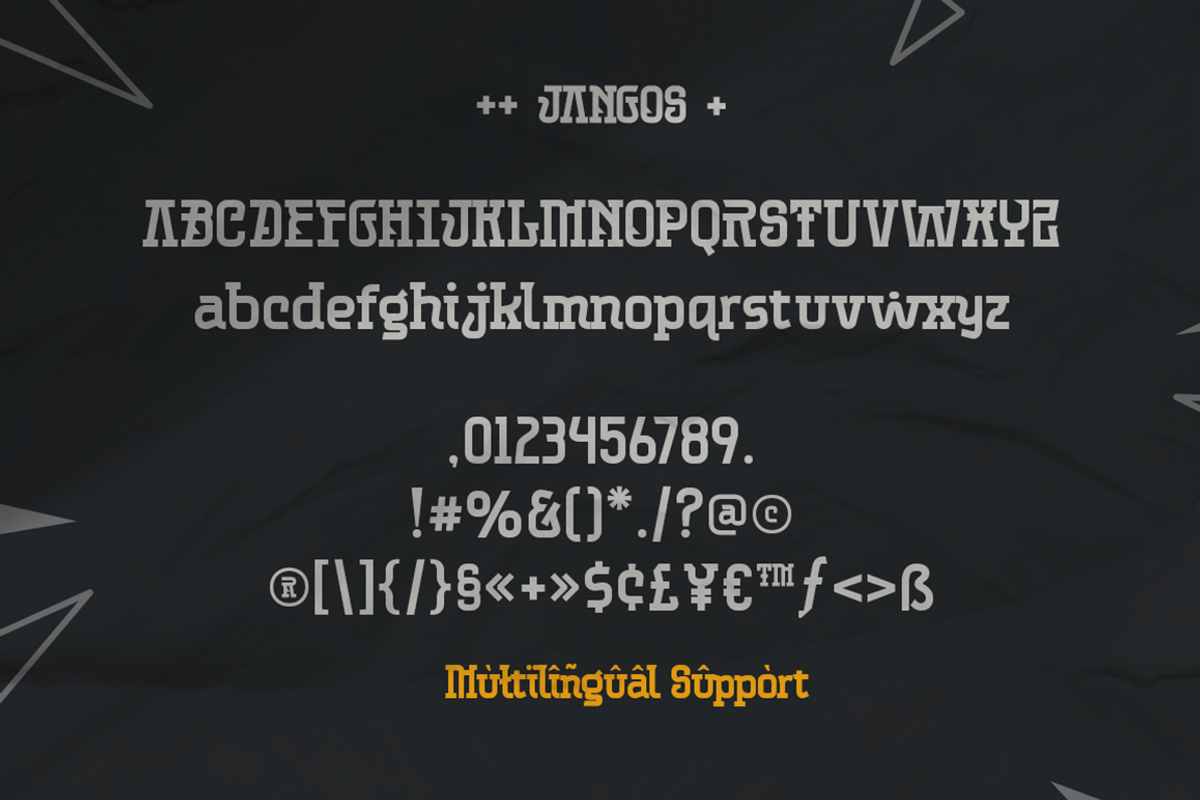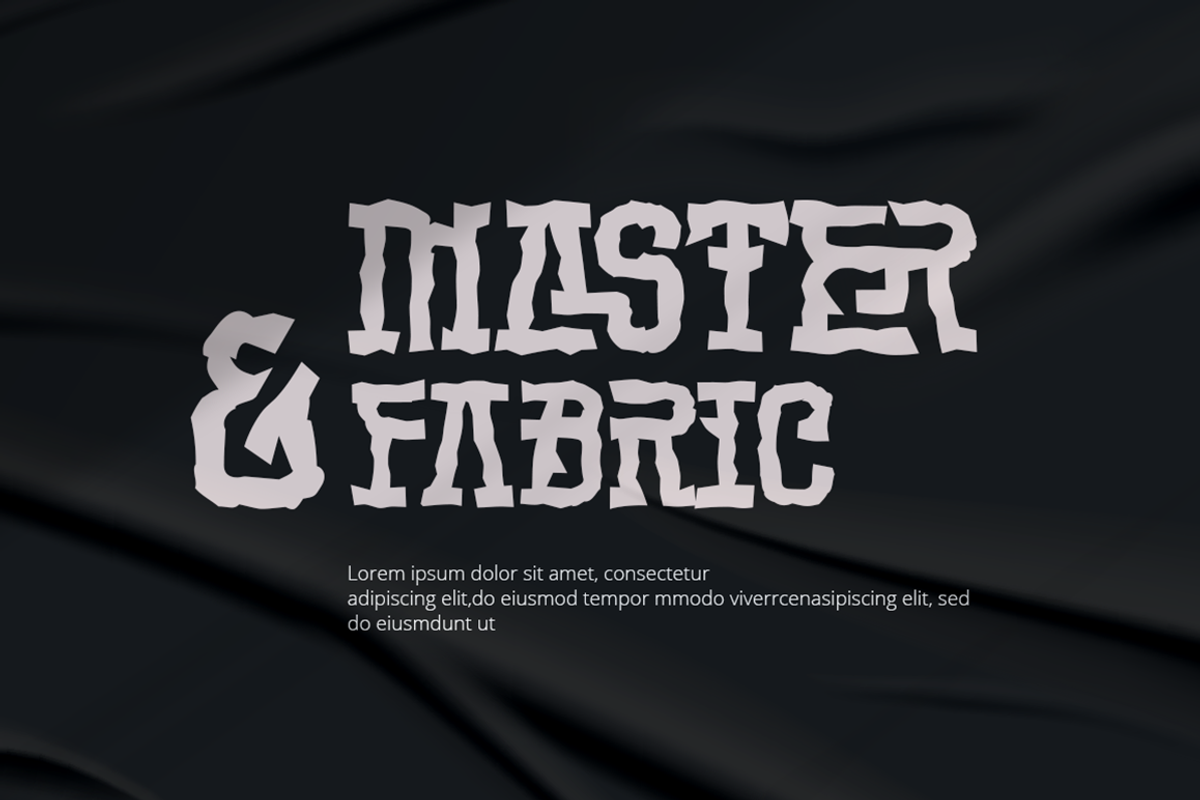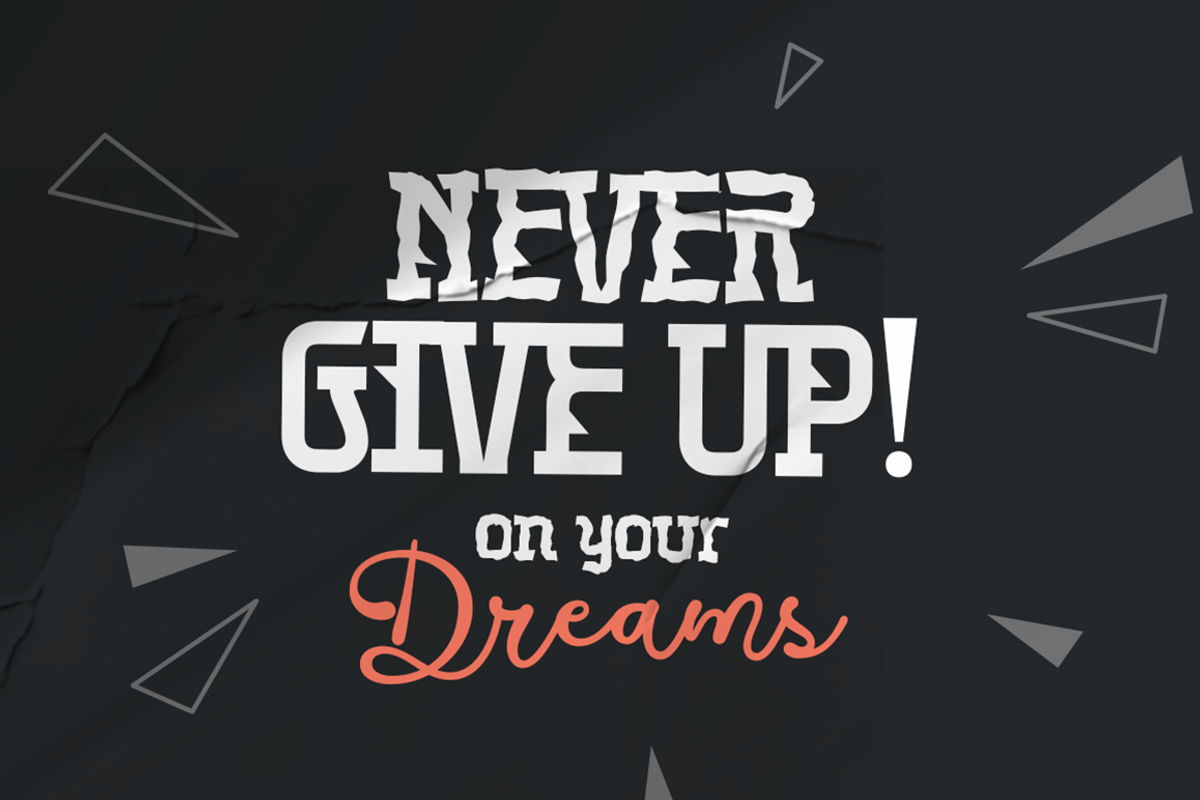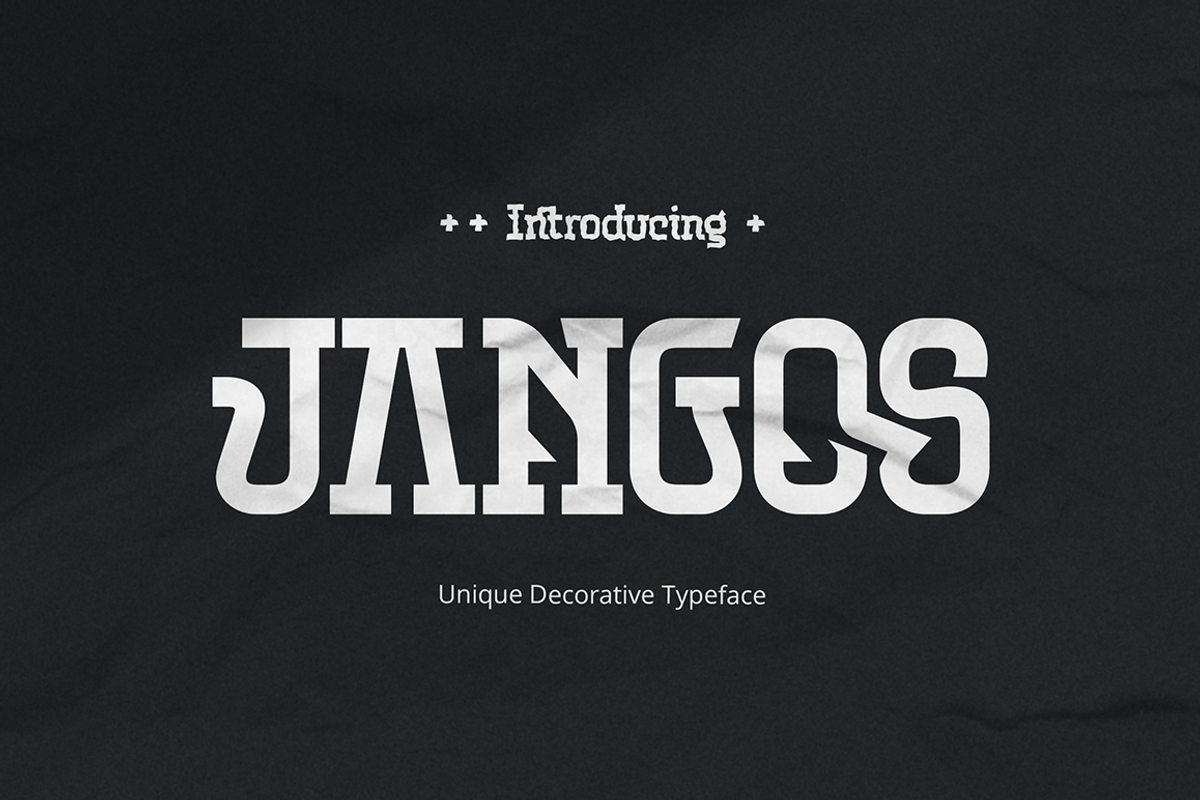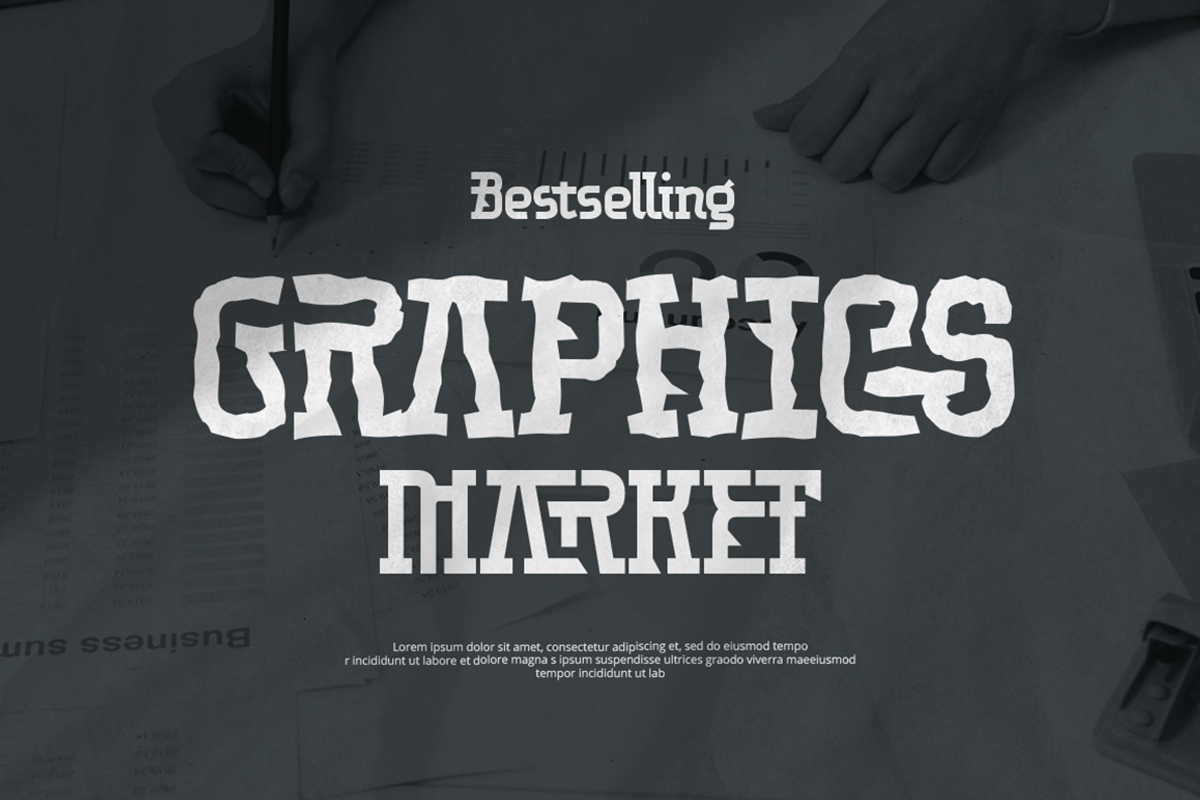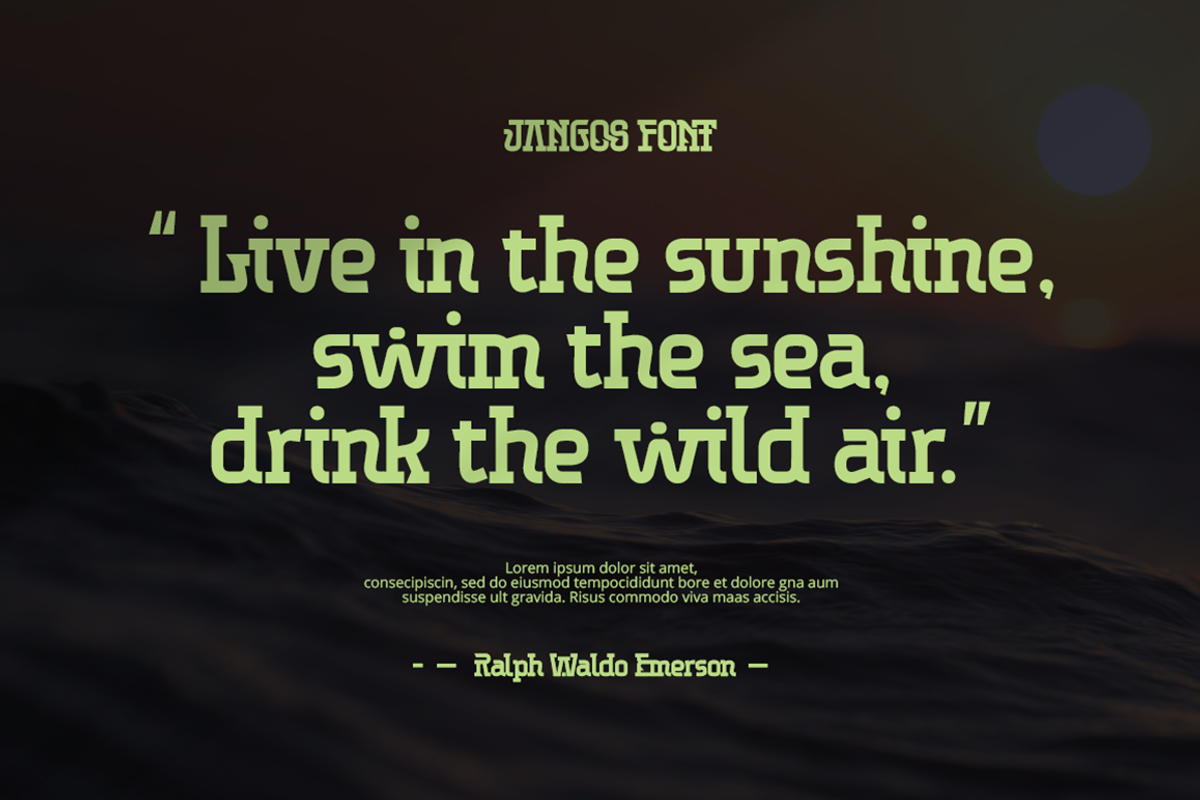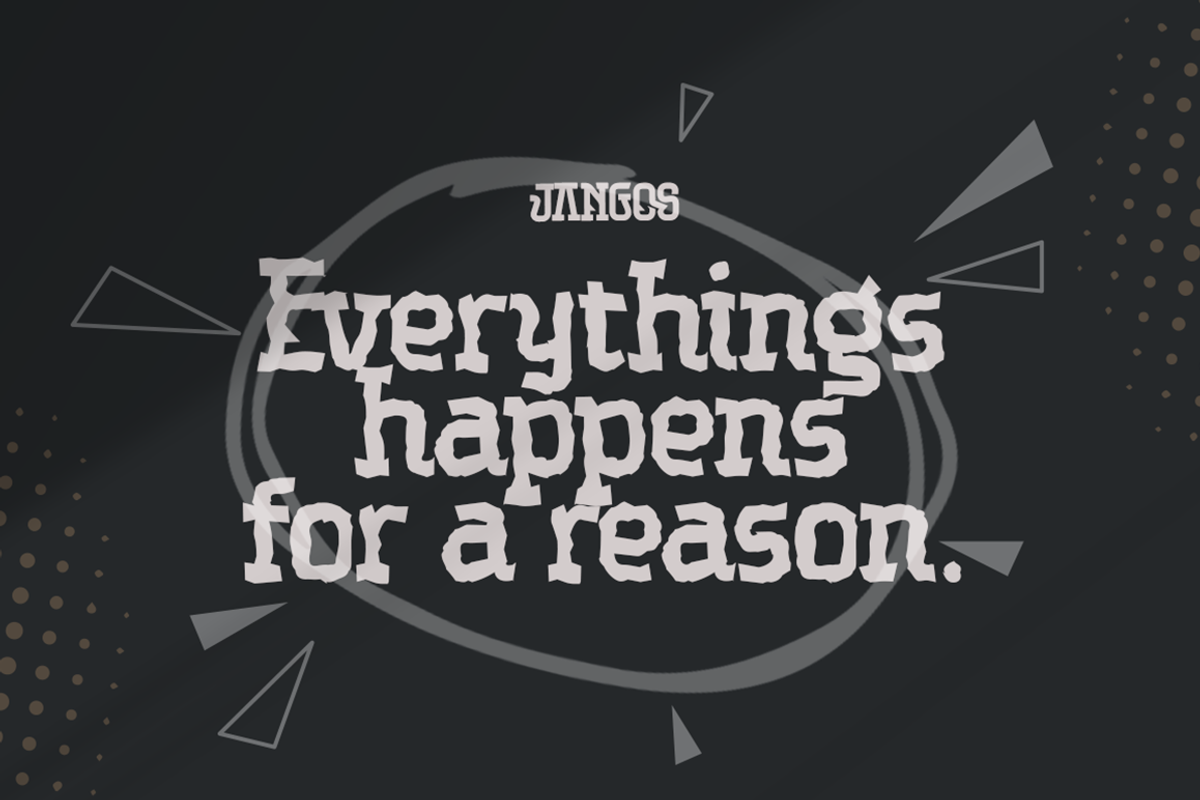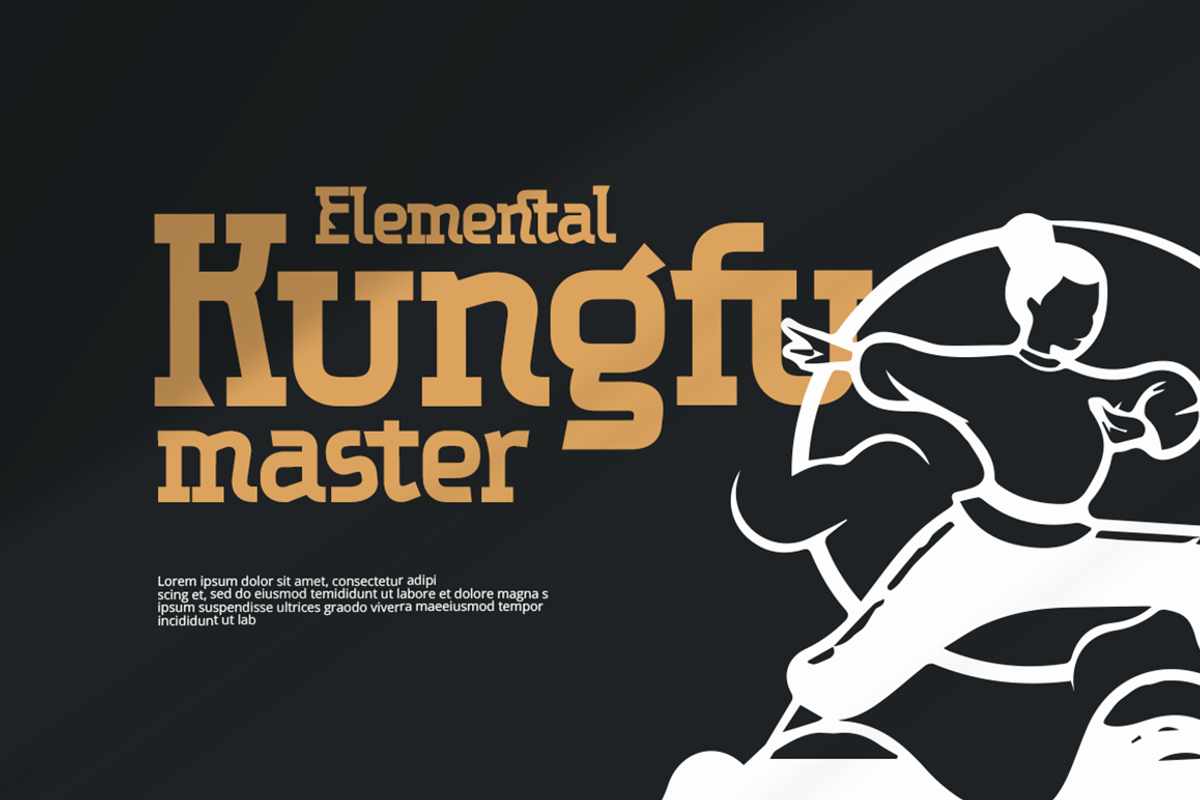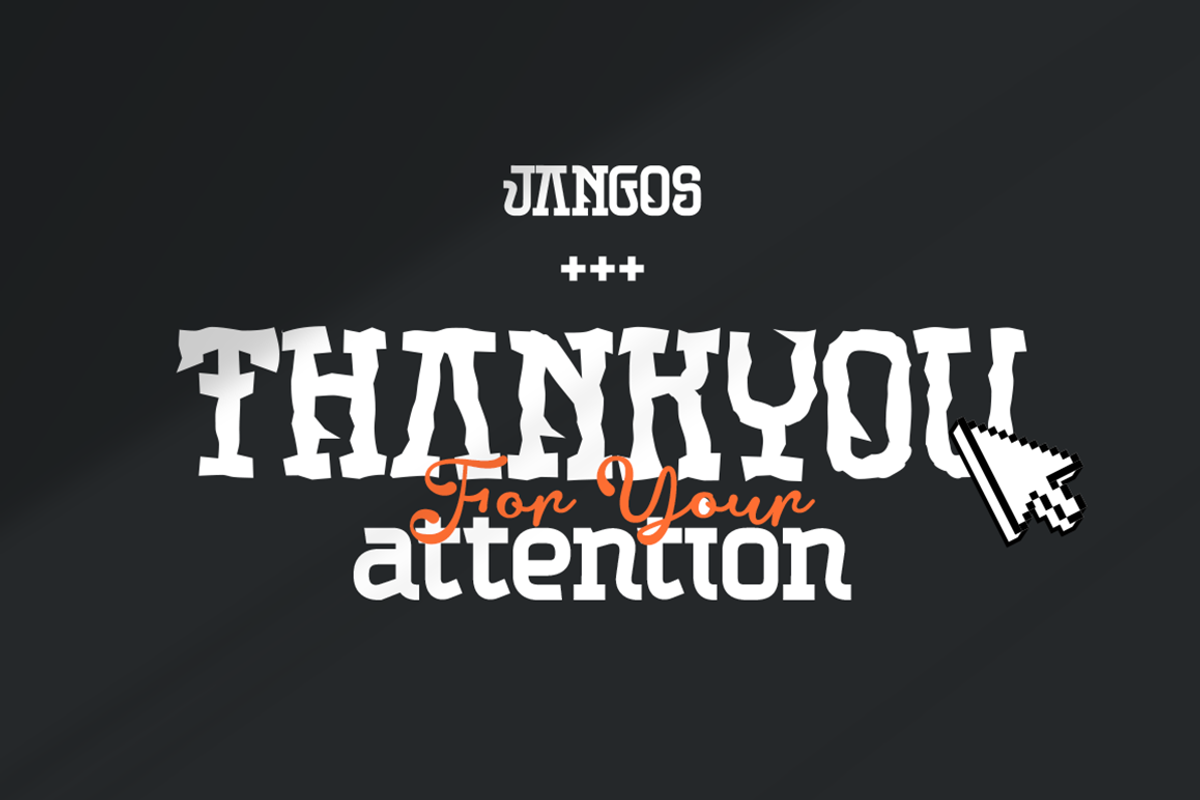
Jangos - Unique Decorative Font
Jangos is a bold and distinctive decorative slab serif font that combines modern aesthetics with a touch of rugged charm. Designed to stand out, Jangos offers two dynamic styles—Regular and Distort—making it a versatile choice for creative projects that demand attention. The Regular style delivers clean, structured letterforms ideal for contemporary branding, headlines, and editorial layouts. In contrast, the Distort style introduces a stylized, edgy twist, perfect for artistic logos, posters, and statement designs that break convention. With its strong character and unique personality, Jangos is the perfect typeface for logos, headers, and standout titles that need to leave a lasting impression.
- Regular and Distort Font
- Basic Latin Glyphs
- Unique Ligatures
- Currencies